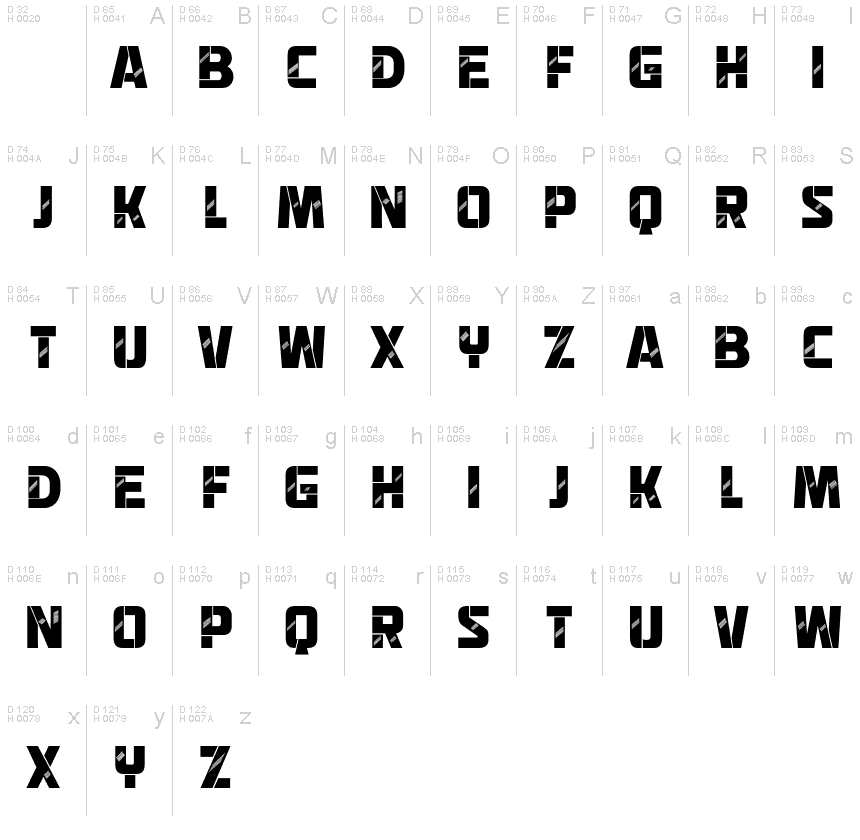
Coal Regular
Coal, the extra-bold display font created by Vladimir Nikolic, brings a sense of authority and power to any project it's used in. With its military-inspired style, Coal is perfect for designs that demand attention and convey a no-nonsense attitude. Use it in advertising campaigns for rugged outdoor gear or edgy fashion brands that cater to the bold and daring. Coal's strong lines and distinct shapes also make it an ideal choice for logos and branding material that need to stand out from the crowd. Embrace the strength of Coal and make your message impossible to ignore.